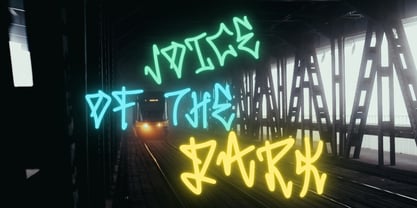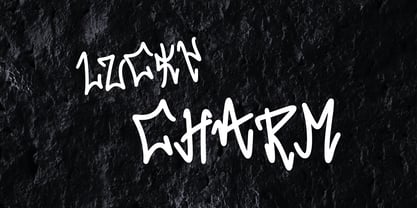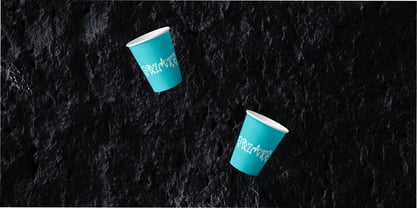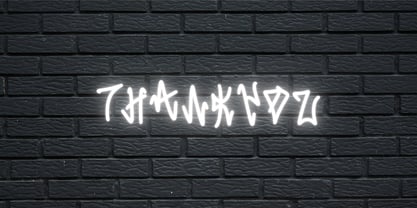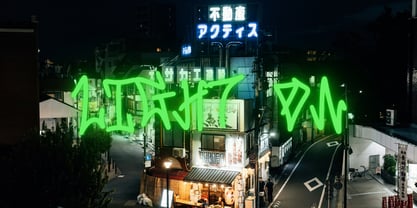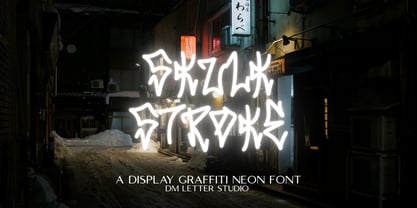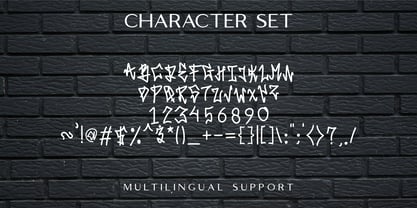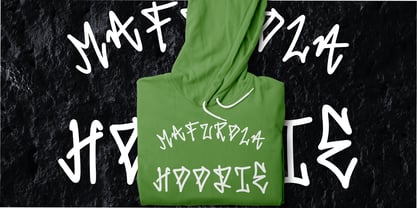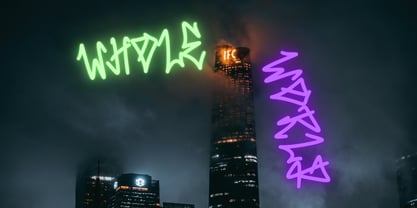
Skulk Stroke
by DM Studio
The Skulk Stroke Font Family was designed by Dimas Prasetyo and published by DM Studio. Skulk Stroke contains 1 styles. More about this family
Meet Skulk Stroke, the Display Graffiti Neon Font Skulk Stroke is a sharp graffiti neon display font built for high-voltage street visuals. The strokes feel fast and instinctive, like a glowing tag sprayed across a dark alley wall. Its edgy structure and bright-ready shapes make it perfect for designs that need attitude and visibility. Use Skulk Stroke for music posters, streetwear branding, gaming graphics, YouTube thumbnails, nightclub promos, and bold merch. As a result, your typography feels electric, urban, and instantly attention-grabbing. Why Skulk Stroke sells First, Skulk Stroke installs quickly and works smoothly in Canva, Photoshop, and Illustrator. Next, the strong letter construction holds up well under neon glow effects and heavy outlines. Then layouts come together faster because the graffiti style already brings personality and motion. Moreover, neon street aesthetics are trending across gaming, music, and youth culture niches. Therefore, Skulk Stroke fits perfectly into bold, modern collections. Fast layouts with the Skulk Stroke Font Start with short, punchy words to maximize impact. After that, add a glow, outer stroke, or subtle shadow to enhance the neon feel. Because the style is dynamic, keep backgrounds dark or minimal for better contrast. In addition, pair it with a clean sans serif for secondary information. Finally, save palettes like electric blue and black, hot pink and purple, lime green and charcoal, or red and navy for cohesive neon branding. Creative uses and quick wins Music album covers and DJ event posters Streetwear logos and hoodie graphics Gaming thumbnails and esports branding Nightclub flyers and urban social media content What you get Uppercase and lowercase letters Numbers and basic punctuation Design tips for Skulk Stroke Use Skulk Stroke for headlines and avoid long paragraphs. Also, apply neon glow effects carefully to maintain readability. For print, test high-contrast colors to ensure clarity. For digital, scale slightly larger so strokes remain sharp on mobile screens. Finally, combine it with geometric shapes or light beams for extra depth.
Designers: Dimas Prasetyo
Foundry: DM Studio